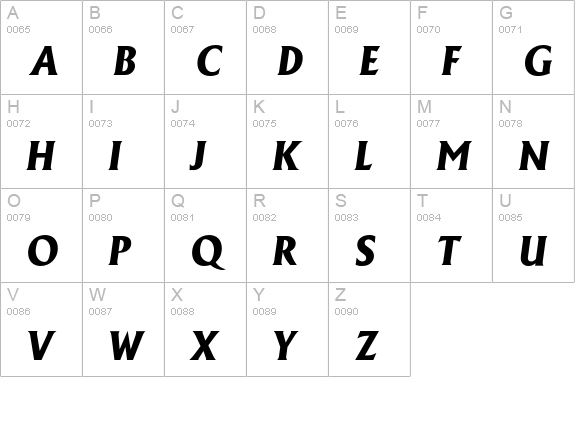
Adelon-BoldIta Font Details
Adelon-BoldIta font is a striking and elegant typeface that exudes sophistication and style. Its bold and italic design adds a touch of modernity while still maintaining a classic appeal. The strong, confident strokes of this font make it perfect for creating eye-catching headlines, titles, and signage. The versatility of Adelon-BoldIta font allows it to be used in a variety of design projects, from branding and logo design to editorial layouts and packaging. Its clean and readable characters ensure that your message is always clear and impactful. Best of all, Adelon-BoldIta font is available for free download at FontsMarket.com. This means that you can easily access this stunning typeface and use it in your projects without any cost. Don't miss out on the opportunity to enhance your designs with the timeless beauty of Adelon-BoldIta font.